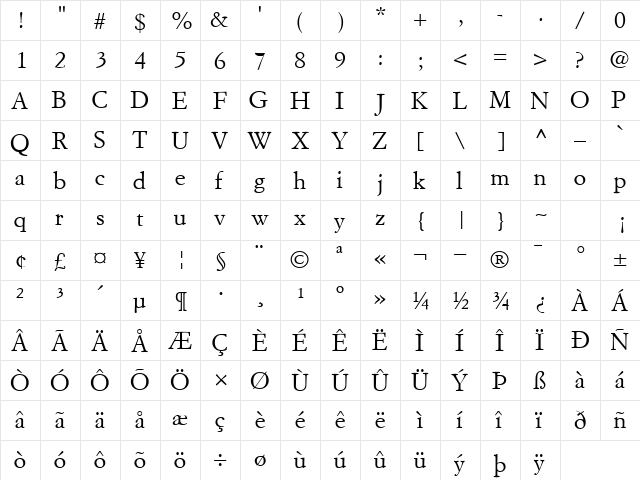
FlorentineGaramondSSK Regular
FlorentineGaramondSSK is a composed and adaptable typeface that performs quietly and consistently across a wide range of design contexts.